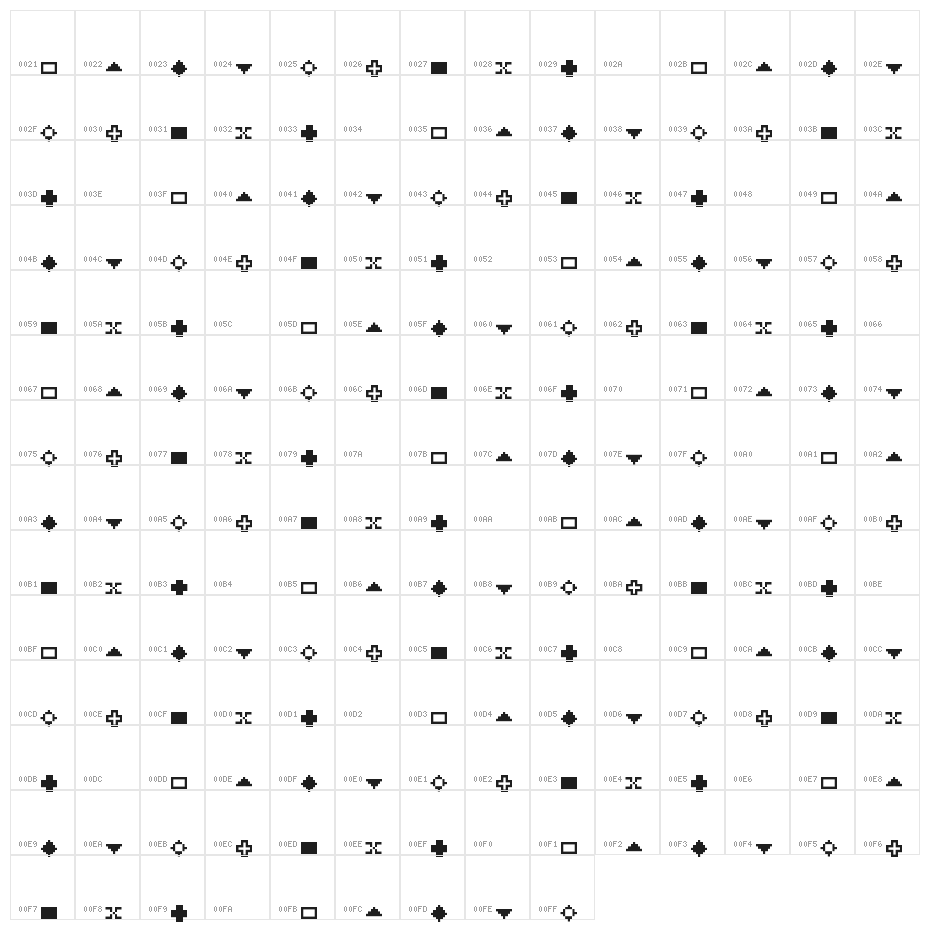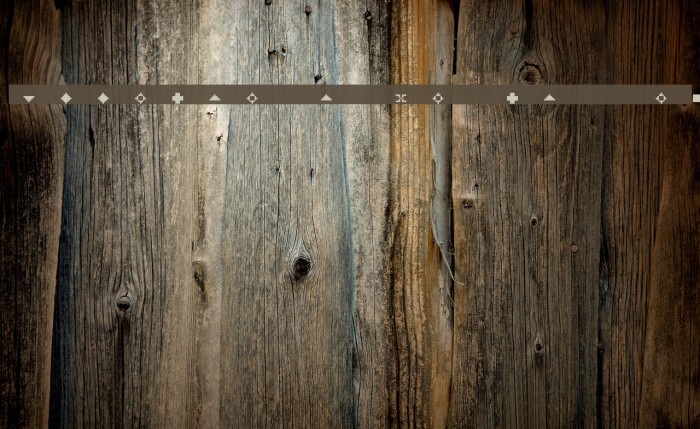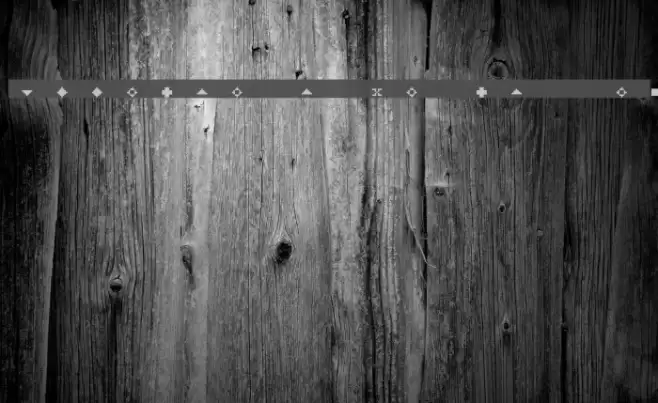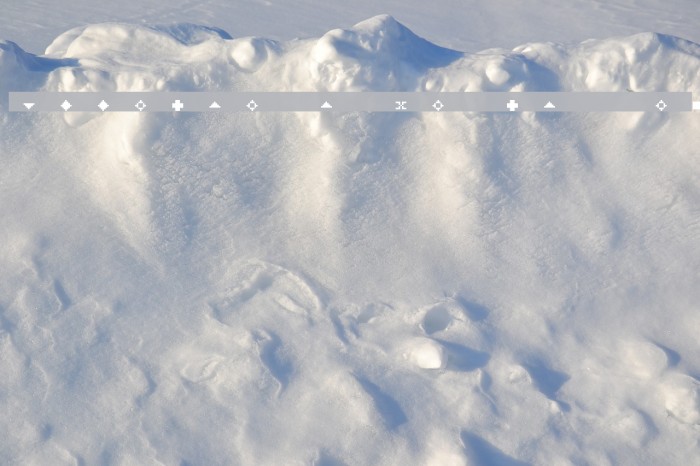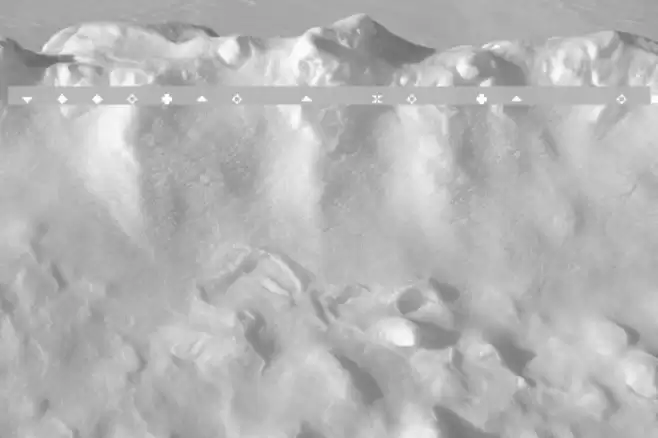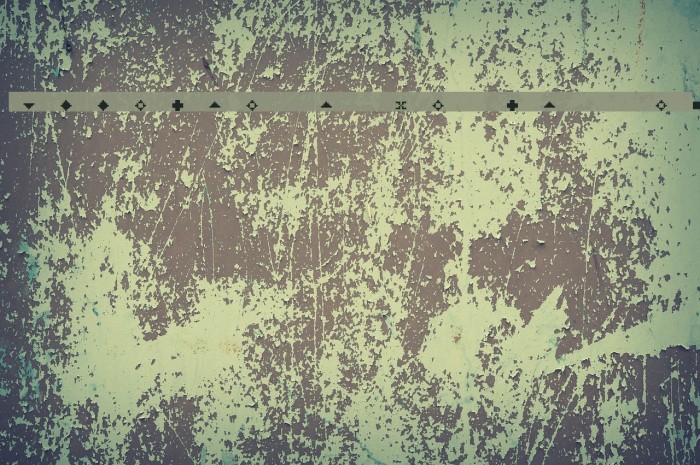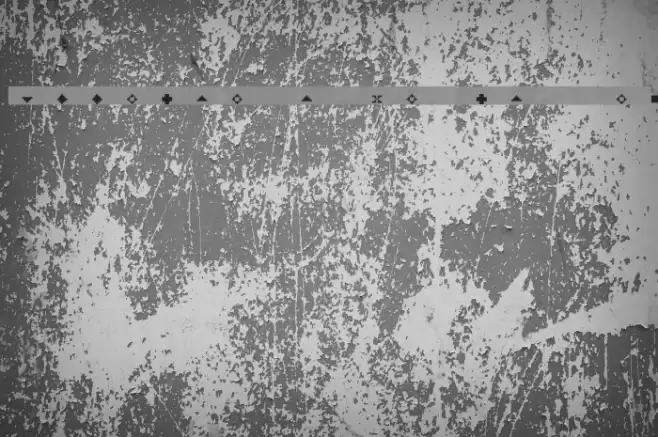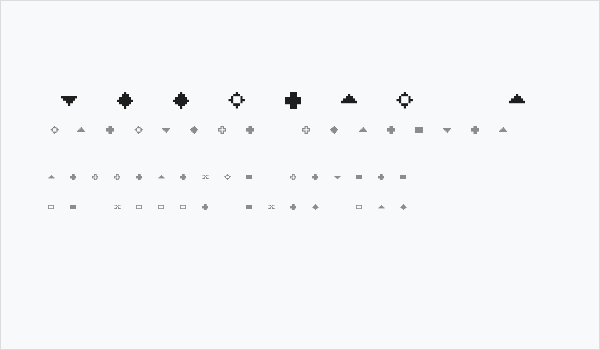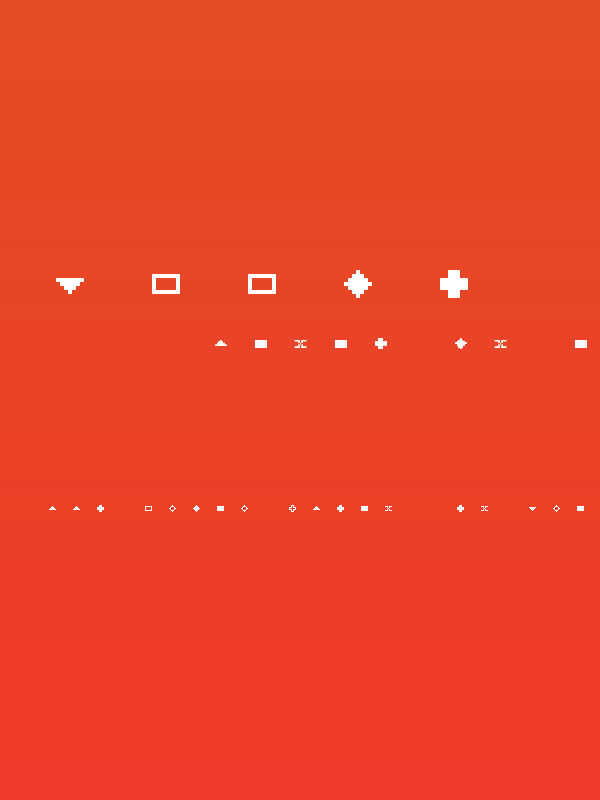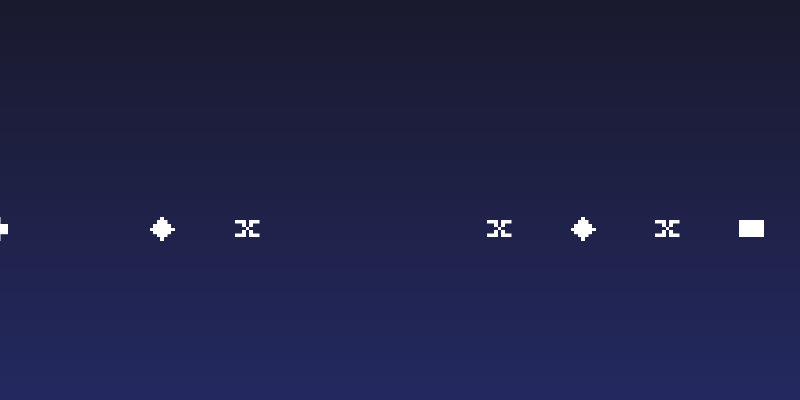
LisaGraph Paper Raw Font
LisaGraph Paper Raw Description
| Overall Style | Modern, Technical, Minimalist |
| Use Case | Icons, infographics, technical illustrations, educational materials. |
| Proposed Projects | Data visualization, infographics, UI icon sets, educational tools, technical diagrams. |